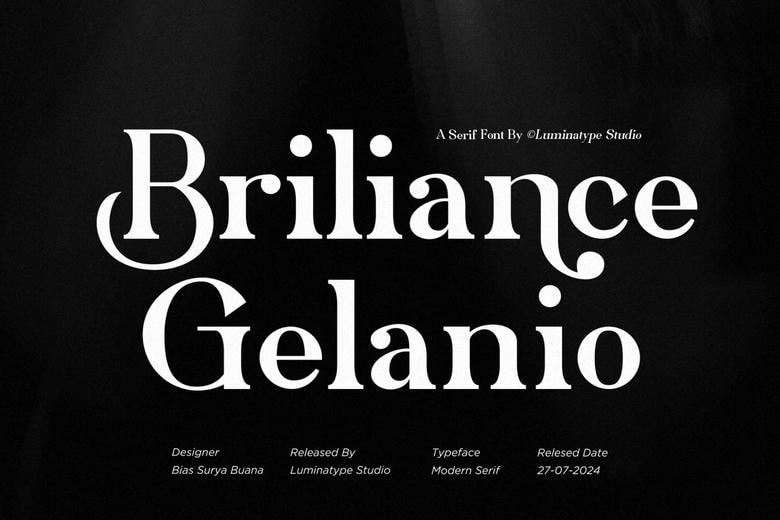
LT Briliance Gelanio Font
LT Briliance Gelanio Font, A fine serif font well designed by Lumintape Studio that is perfect blend of fashion and functionality. Due to the features of the opposing glyphs, this font type suits perfectly to the high-impact display applications. From producing editorial content to polishing particular attributes of a logo or improving the general appearance of a music album cover, this outlet shines brightly.
It is also perfect for what is called apparel branding or for giving a tasteful look for just about any type of product packaging. It can highlight magazine covers or just enrich your text leading further on any background. Learn more about the great features of the Briliance Gelanio serif font.
LT Briliance Gelanio Serif Font